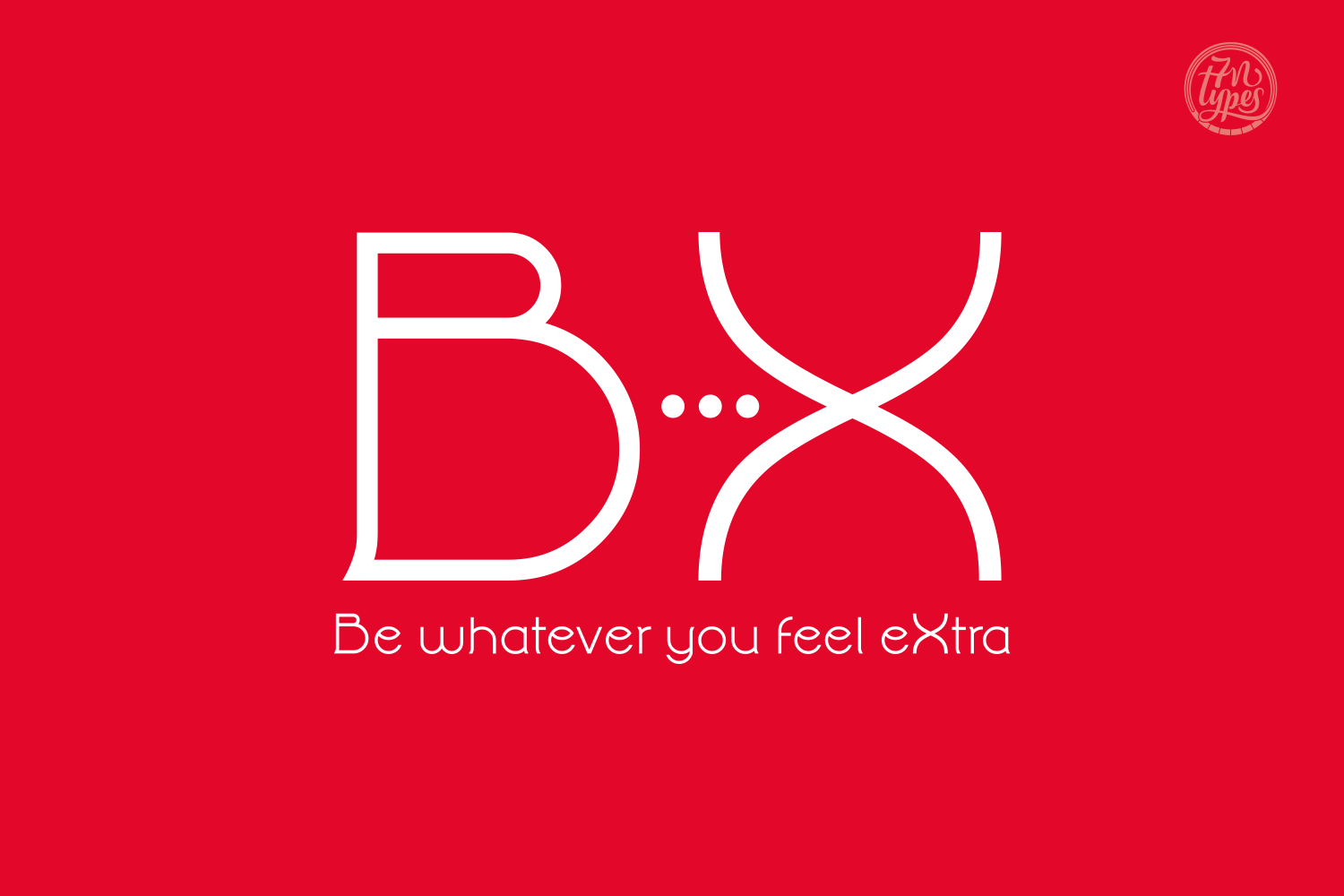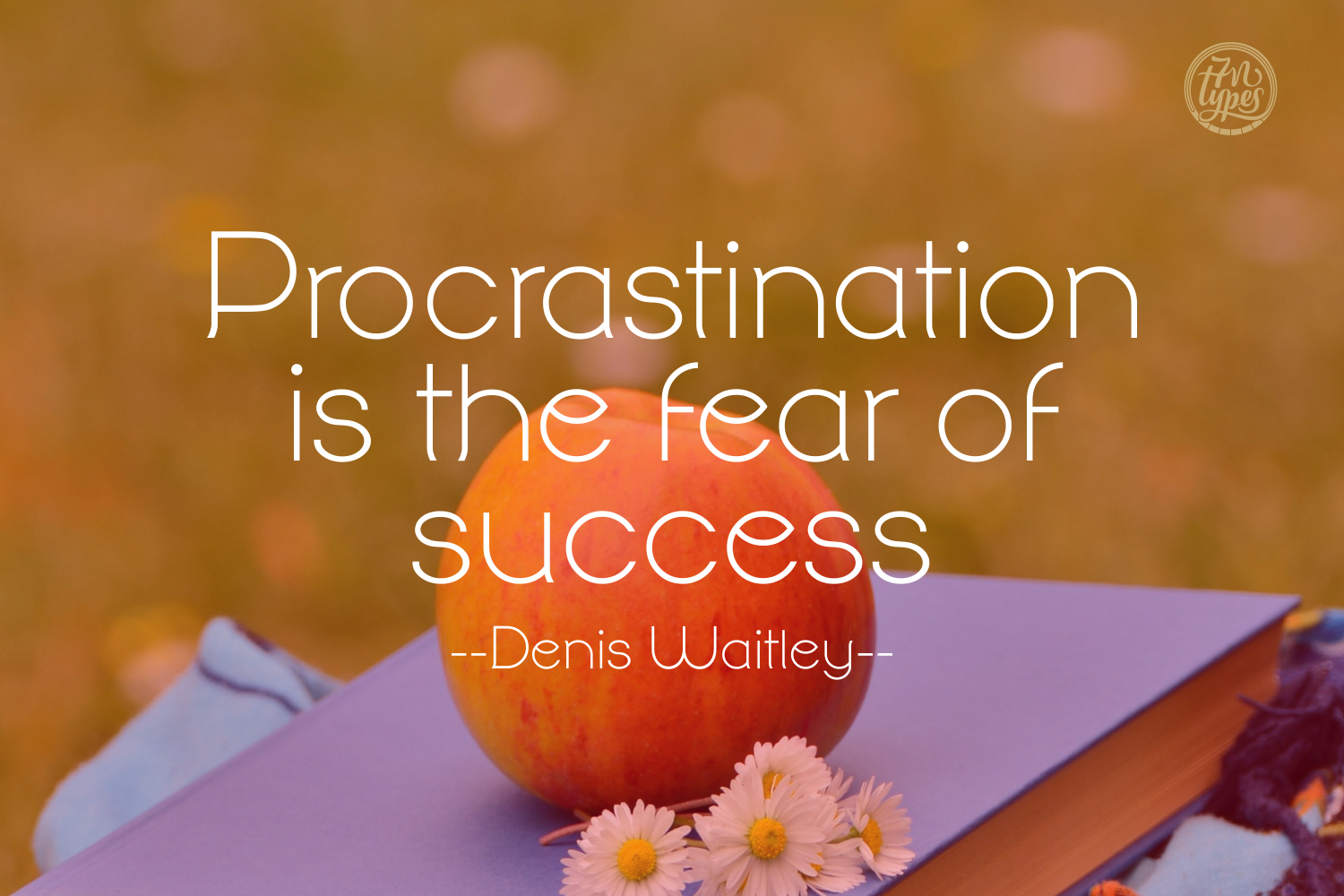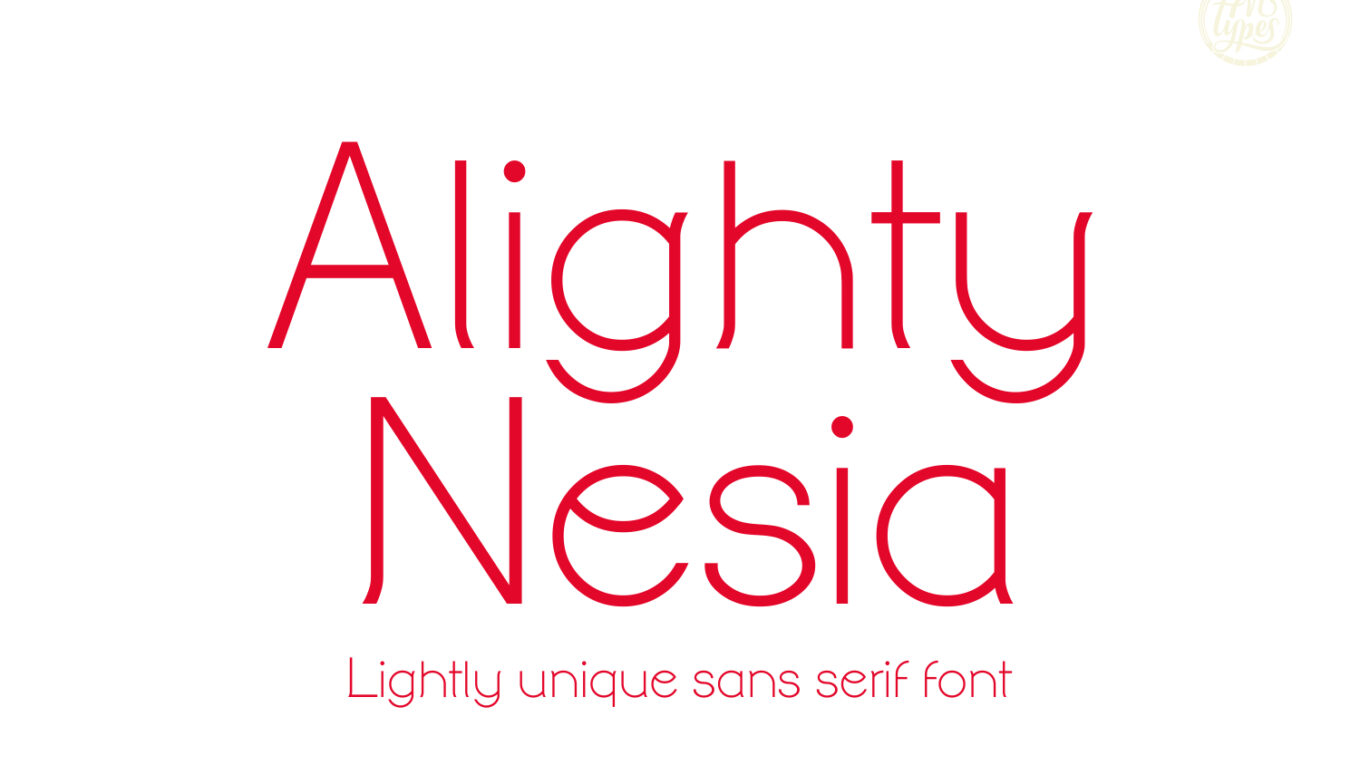
Alighty Nesia Font: A Slick and Recognizable Sans Serif for Modern Designs
In the world of typography, fonts play a crucial role in making or breaking a design. A well-crafted font can elevate a design from ordinary to extraordinary. Alighty Nesia, a sans serif font created by the talented Situjuh Nazara, is one such font that has been making waves in the design community. In this article, we’ll dive into the features, benefits, and uses of Alighty Nesia, and explore why it’s a great addition to any designer’s toolkit.
The Creator: Situjuh Nazara
Before we dive into the font itself, let’s take a brief look at the creator, Situjuh Nazara. As a renowned font designer, Situjuh has been crafting high-quality fonts that cater to the needs of designers and crafters worldwide. With a keen eye for detail and a passion for typography, Situjuh has established himself as a reputable name in the font design industry.
Introducing Alighty Nesia
Alighty Nesia is a sleek and modern sans serif font that exudes sophistication and elegance. The font comes in two styles: regular and bold, making it versatile for various design applications. Its clean lines, precise curves, and balanced proportions make it perfect for designs that require a professional and contemporary look.
Key Features of Alighty Nesia
- Slick and Recognizable Design: Alighty Nesia boasts a unique and memorable design that sets it apart from other sans serif fonts.
- Regular and Bold Styles: The font comes in two styles, allowing designers to use it for a range of applications, from body text to headings.
- High-Quality Typography: Alighty Nesia features precise curves and clean lines, ensuring that it looks great in both digital and print formats.
- Easy to Read: The font’s balanced proportions and clear letterforms make it easy to read, even at smaller sizes.
Benefits of Using Alighty Nesia
So, why should designers and crafters choose Alighty Nesia for their projects? Here are some benefits of using this fantastic font:
- Branding and Identity: Alighty Nesia is perfect for creating professional-looking brand identities, including logos, business cards, and letterheads.
- Digital and Print Media: The font’s versatility makes it suitable for use in various digital and print media, such as websites, magazines, and brochures.
- Easy to Pair: Alighty Nesia pairs well with other fonts, making it easy to create harmonious and visually appealing typography.
- Time-Saving: With Alighty Nesia, designers can save time and effort, as the font is ready to use and requires minimal editing.
Tips for Using Alighty Nesia
To get the most out of Alighty Nesia, here are some tips for using the font:
- Use it for Headings and Titles: Alighty Nesia’s bold style is perfect for headings and titles, adding a touch of sophistication to your designs.
- Pair it with Other Fonts: Experiment with pairing Alighty Nesia with other fonts to create unique and visually appealing typography.
- Adjust Letter Spacing: Adjusting the letter spacing can enhance the font’s readability and make it more suitable for body text.
Alighty Nesia is a fantastic sans serif font that offers a unique blend of style, versatility, and professionalism. Created by the talented Situjuh Nazara, this font is perfect for designers and crafters looking to elevate their designs. With its sleek design, regular and bold styles, and ease of use, Alighty Nesia is an excellent addition to any designer’s toolkit.
Whether you’re working on a branding project, creating a website, or designing a print publication, Alighty Nesia is a great choice. So, why not give it a try and experience the benefits of using this amazing font for yourself?